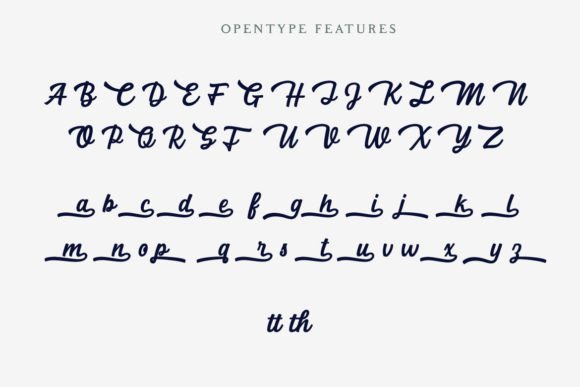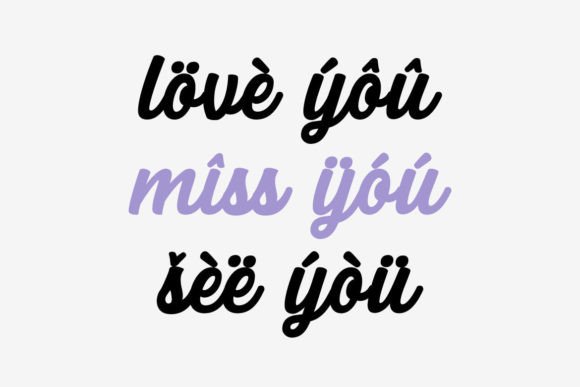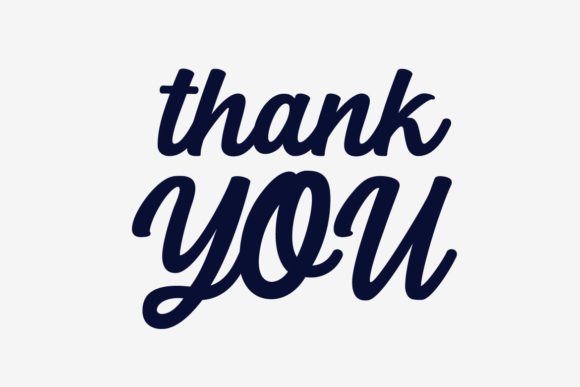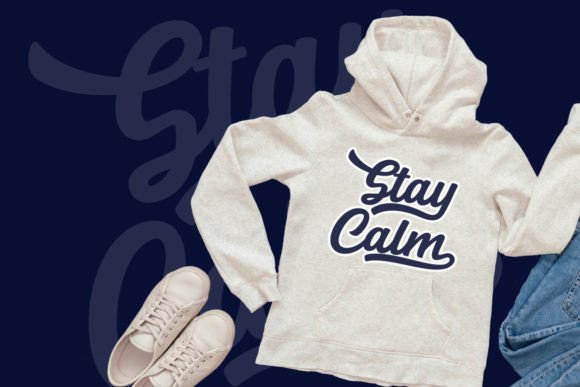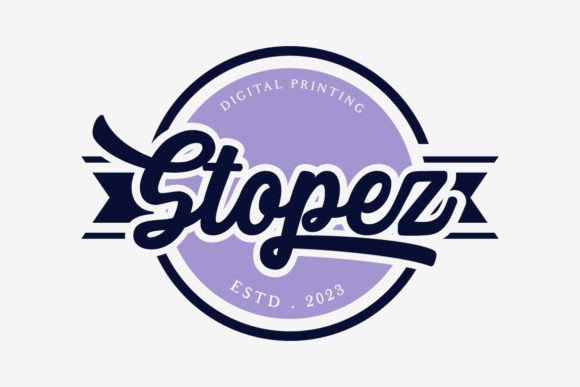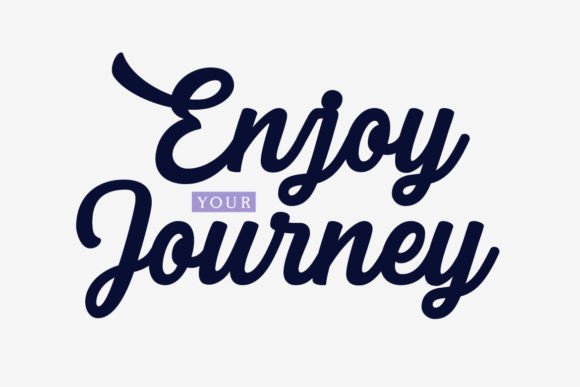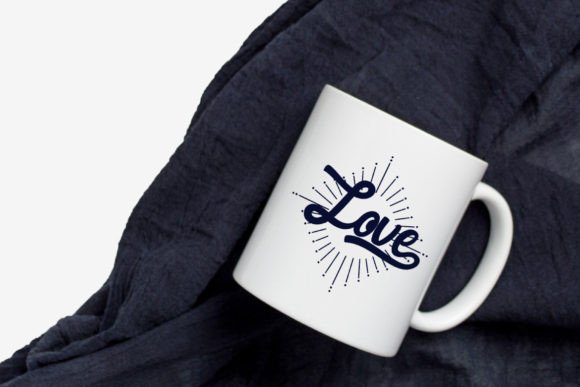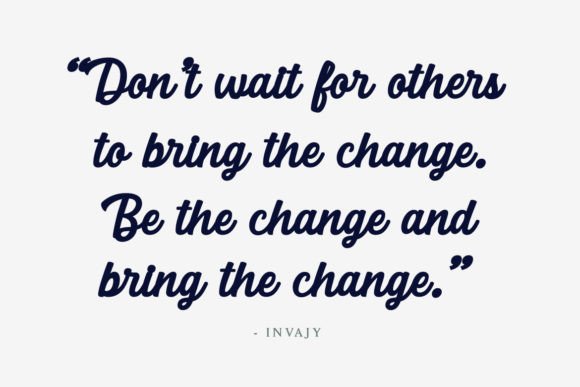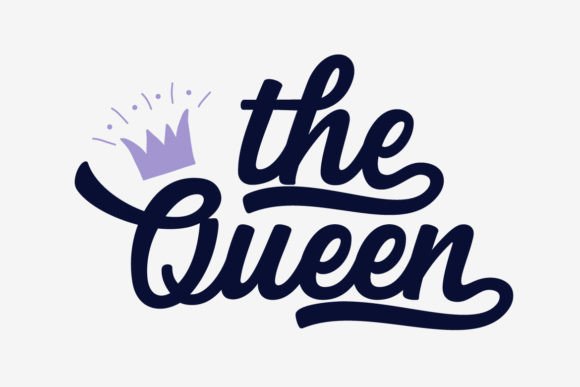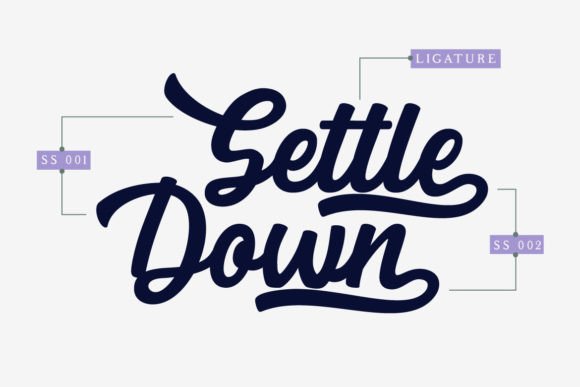
Alpha Yerock Font
Alpha Yerock: A Bold Script Font That Demands Attention
If you’re in search of a typeface that blends strength with elegance, Alpha Yerock is the perfect match. This bold script font combines dynamic strokes with OpenType features that add a stylish flair to any project. With every curve and flourish, it brings confidence and charisma to your design.
From branding and product labels to wedding invitations and event materials, Alpha Yerock helps your text stand out with personality and polish.
Bold Typography That Makes a Lasting Impression
The defining feature of Alpha Yerock is its boldness—both in weight and in style. Unlike ordinary script fonts, it delivers a commanding presence while maintaining smooth, fluid letterforms. Whether you’re working on a digital project or a printed piece, this font will bring strong visual impact.
Here’s where this bold script font shines:
• Logo design and brand identity
• Stylish wedding invitations
• Elegant product labels and packaging
• Blog headers and website hero text
• Apparel prints and handmade merchandise
• Social media graphics and advertising material
Its distinctive look adds instant personality to whatever you’re creating.
Why Alpha Yerock Belongs in Your Design Toolkit
Designers love Alpha Yerock for its flexibility and character. While it’s bold and expressive, it also adapts beautifully to both modern and vintage design themes. Its OpenType features—like ligatures and stylistic alternates—allow you to customize the typography and create unique results every time.
Here’s what sets this bold script font apart:
• Eye-catching stroke contrast and swashes
• Smooth connections between letters
• Excellent readability at both small and large sizes
• Ideal for creating a signature or calligraphic effect
• Works well in both digital and print formats
It’s not just a font—it’s a design asset that helps your work stand out.
Ideal for Bold Branding and Elegant Invitations
Whether you’re creating for a client or crafting your own visual identity, Alpha Yerock offers a bold yet graceful tone. It’s especially suited for:
• Boutique branding
• Elegant event materials
• Personal monograms or signatures
• Handmade product designs
• Eye-catching typographic posters
Its stylish charm and visual strength make it a favorite among creatives.
Alpha Yerock is more than a typeface—it’s a visual experience. With its bold curves, fluid motion, and versatile applications, this bold script font is an excellent addition to any designer’s toolkit.